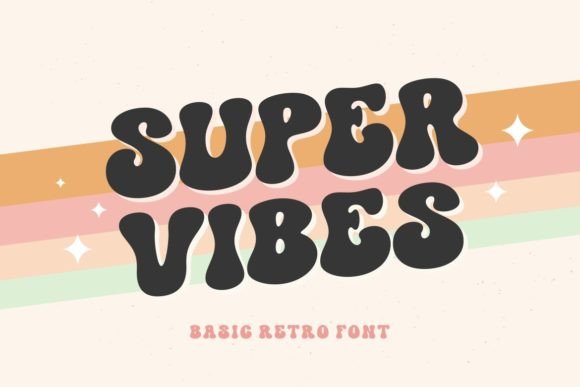
Bring back the retro vibe with Super Vibes Font! This groovy display font from HansCo is the perfect addition to your design toolkit. With its unique retro style, Super Vibes Font is sure to make your designs stand out.
Designed with care, Super Vibes Font is crafted to become your go-to font for all your creative needs. Its distinct retro feel is perfect for adding that special touch to any project. From posters, flyers, and invitations to logos, headlines, and branding, this font has got you covered.
Super Vibes Font is a must-have for anyone who wants to make a statement with their designs. Its fun and funky style exudes creativity and energy, making it the perfect choice for any project that needs a little something extra. The font is designed to be legible and readable, making it perfect for any application.